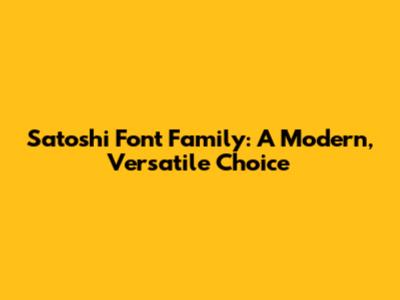
Choosing the right font can be a game-changer for your design projects, guys! It sets the tone, enhances readability, and reflects your brand's personality. When it comes to modern and versatile fonts, the Satoshi font family stands out. It's not just another typeface; it's a carefully crafted tool that can elevate your work to the next level. Plus, it's available on Google Fonts, making it easily accessible for everyone. So, let's dive into what makes Satoshi such a popular choice and how you can make the most of it in your designs.
What is the Satoshi Font Family?
The Satoshi font family is a sans-serif typeface designed with a modern and geometric feel. What does that really mean, though? Well, imagine a font that's clean, simple, and easy on the eyes. It's designed to be highly readable across various platforms and devices, from your phone screen to a printed poster. This versatility is one of the key reasons why designers love it. Satoshi includes a variety of weights and styles, from light to bold, giving you plenty of options to play with. Whether you're working on a website, a presentation, or a branding project, Satoshi can adapt to fit your needs. It’s also worth noting that the geometric construction lends a contemporary edge, making it perfect for projects that aim for a sleek, modern aesthetic. The subtle details in its design, such as the balanced letterforms and consistent stroke widths, contribute to its overall polished appearance. Moreover, the wide character set supports multiple languages, making it a globally viable option. Basically, Satoshi is designed to be your go-to font for almost any design task.
Why Choose Satoshi for Your Projects?
Okay, so why should you pick Satoshi over the thousands of other fonts out there? There are several compelling reasons. First off, its readability is top-notch. The clean, uncluttered design ensures that your text is easy to read, no matter the size or screen resolution. This is crucial for keeping your audience engaged and ensuring they get your message. Secondly, its versatility is a major plus. As mentioned earlier, Satoshi comes in multiple weights and styles, making it suitable for headlines, body text, and everything in between. You can use it for a wide range of projects, from web design to print materials, without having to switch fonts constantly. Thirdly, the modern aesthetic of Satoshi can instantly give your designs a contemporary feel. If you're aiming for a clean, minimalist look, Satoshi is an excellent choice. Its geometric shapes and balanced proportions create a sense of harmony and sophistication. Fourthly, the fact that it’s available on Google Fonts means it’s incredibly easy to implement in your web projects. You don’t have to worry about licensing issues or paying extra fees. Just a few lines of code, and you're good to go! Lastly, Satoshi is designed with attention to detail. The letterforms are carefully crafted to ensure consistency and visual appeal. This level of refinement can make a big difference in the overall quality of your designs. In short, choosing Satoshi can save you time, effort, and money while ensuring your projects look professional and polished.
Tips for Effective Use of Satoshi
To really make the most of the Satoshi font family, here are a few tips to keep in mind. First, consider the hierarchy of your text. Use different weights and styles of Satoshi to create a clear visual hierarchy. For example, use bold for headings, regular for body text, and italic for captions or quotes. This helps guide the reader's eye and makes your content more engaging. Secondly, pay attention to contrast. Make sure there's enough contrast between your text and background colors to ensure readability. Light text on a dark background or dark text on a light background usually works well. Avoid using colors that are too similar, as this can strain the eyes. Thirdly, think about spacing. Adjust the letter-spacing and line-height to improve readability. Too little spacing can make text look cramped, while too much spacing can make it look disjointed. Experiment with different values until you find what looks best for your design. Fourthly, pair Satoshi with other fonts carefully. While Satoshi is versatile, it's not always the best choice for every situation. Consider pairing it with a serif font for a more traditional look, or another sans-serif font for a more modern feel. Just make sure the fonts complement each other and don't clash. Lastly, test your designs on different devices and browsers. What looks good on your computer might not look the same on a mobile device or in a different browser. Always test your designs to ensure they look consistent across all platforms. By following these tips, you can leverage the full potential of Satoshi and create stunning designs that are both visually appealing and highly readable.
Examples of Great Designs Using Satoshi
To inspire you, let's look at some examples of great designs that effectively use the Satoshi font family. Many tech startups and modern businesses use Satoshi in their branding. Its clean and geometric design conveys a sense of innovation and reliability, making it perfect for companies in the tech industry. You'll often see Satoshi used in website headers, body text, and even in logos. Its versatility allows it to adapt to various design elements while maintaining a consistent brand identity. In the publishing world, Satoshi is often used for book covers and magazine layouts. Its readability makes it a great choice for long blocks of text, while its modern aesthetic adds a touch of sophistication. Designers often pair Satoshi with a serif font for the headings to create a balanced and visually appealing design. E-commerce websites also benefit from using Satoshi. Its clean and simple design makes it easy for customers to read product descriptions and navigate the site. Satoshi's versatility allows it to be used for everything from product titles to call-to-action buttons, creating a seamless and user-friendly experience. Furthermore, many portfolio websites use Satoshi to showcase their work. Its modern and professional look helps to create a strong first impression, while its readability ensures that visitors can easily read the content. Designers often use different weights and styles of Satoshi to highlight key information and create a visually engaging layout. These examples demonstrate the wide range of applications for Satoshi, highlighting its versatility and appeal in various design contexts. By studying these examples, you can gain inspiration and ideas for how to use Satoshi in your own projects.
The Satoshi font family is a fantastic choice for designers looking for a modern, versatile, and readable typeface. Its availability on Google Fonts makes it easily accessible for web projects, and its wide range of styles and weights allows for creative flexibility. By following the tips outlined in this article, you can effectively use Satoshi to enhance your designs and create visually appealing and user-friendly experiences. So go ahead, give Satoshi a try and see how it can elevate your next project! Whether you're working on a website, a branding project, or print materials, Satoshi is a reliable and stylish choice that can help you achieve your design goals. Remember to pay attention to hierarchy, contrast, spacing, and font pairing to make the most of this versatile typeface. Happy designing, guys!